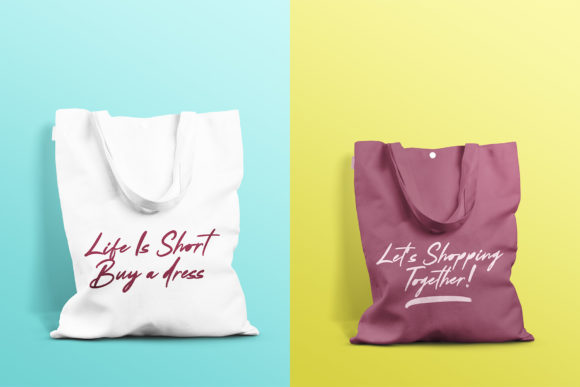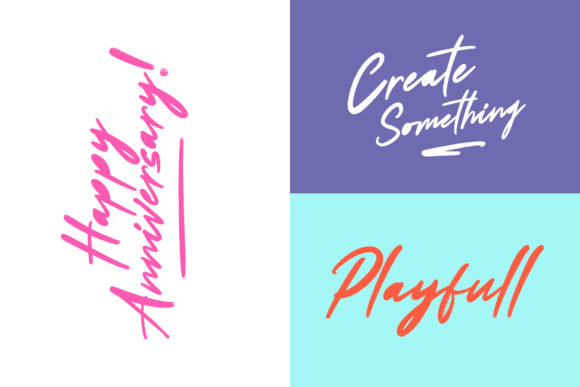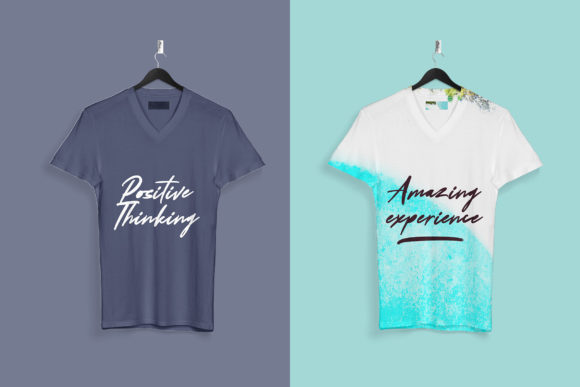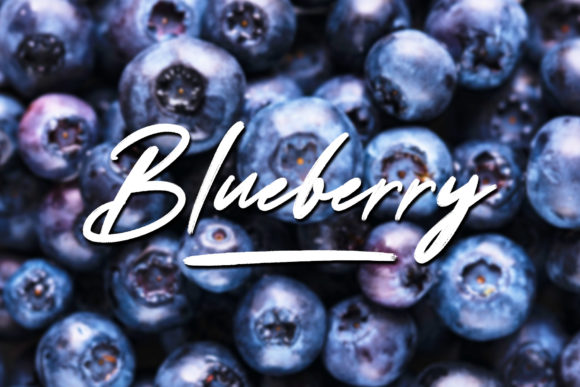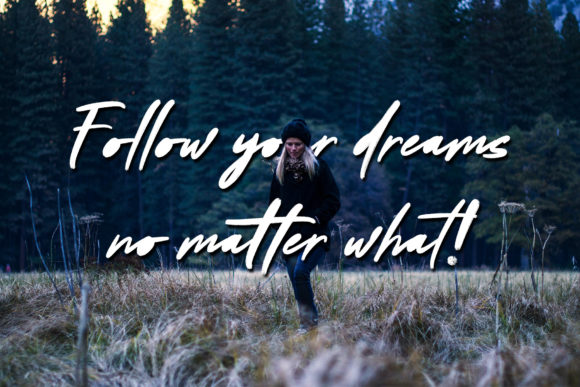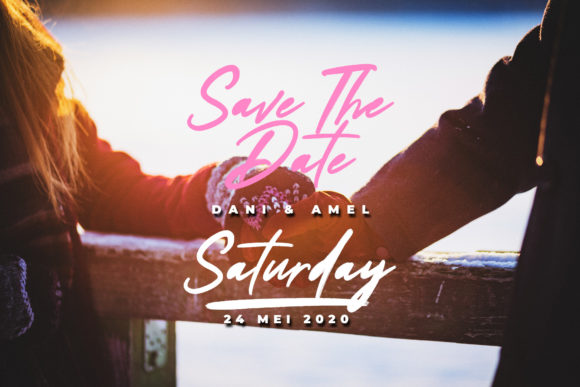
Introduction to Scoutdale Font
Scoutdale is a casual, fun handwritten font, created by using a brush pen.
Clean and a little bit quirky, this font is the perfect fit for all of your logos, branding, social media, and crafty DIY projects .